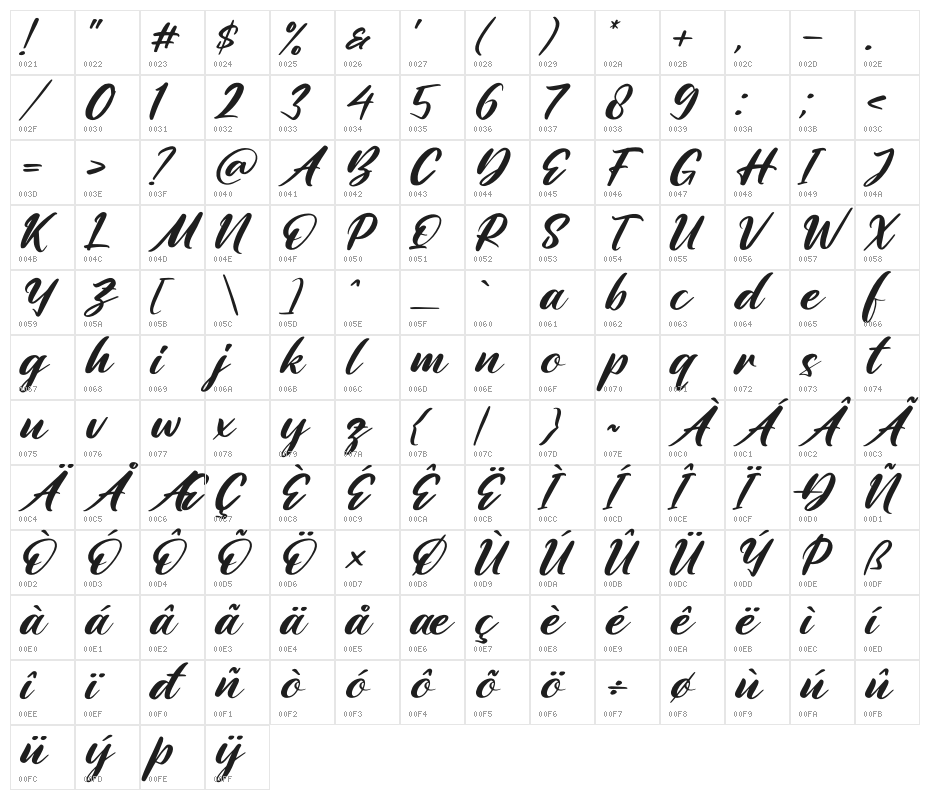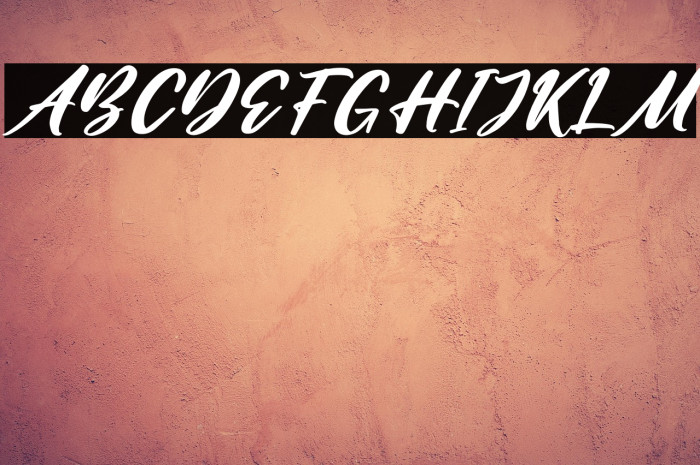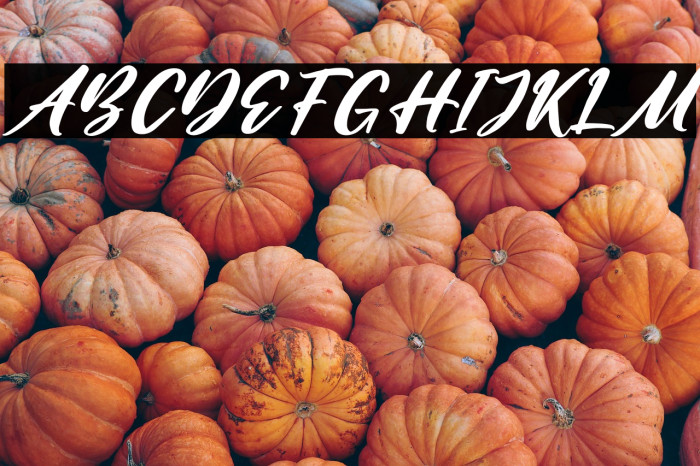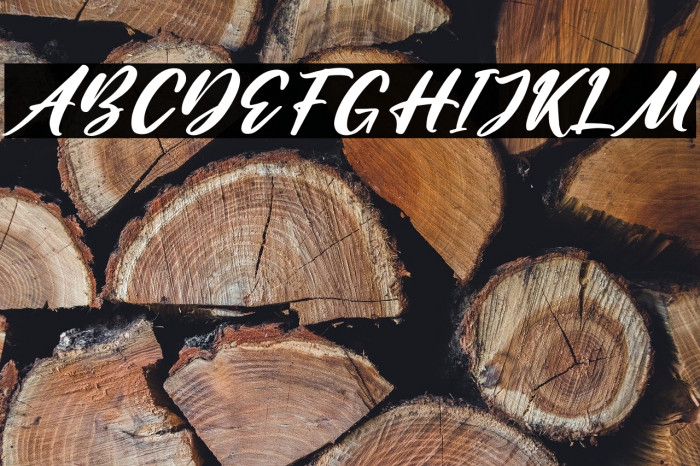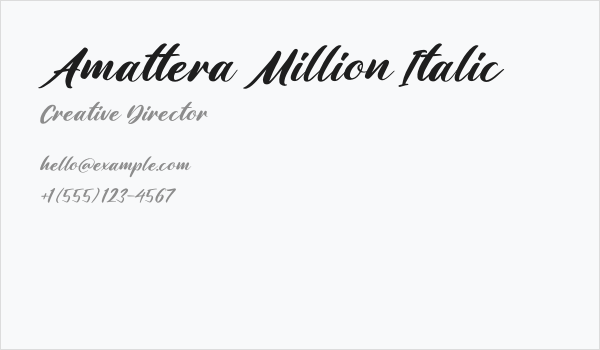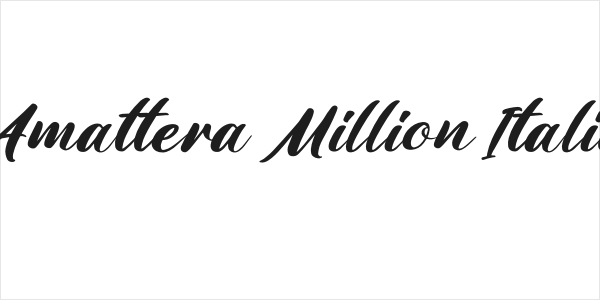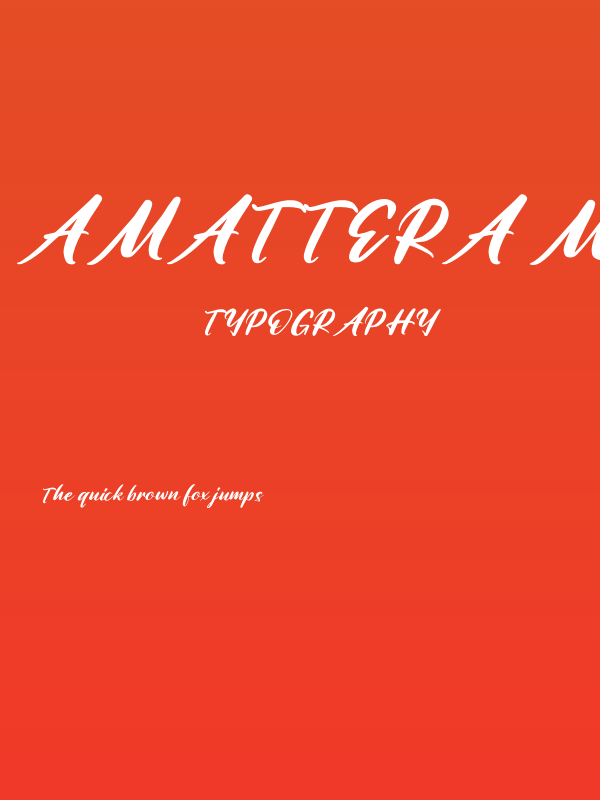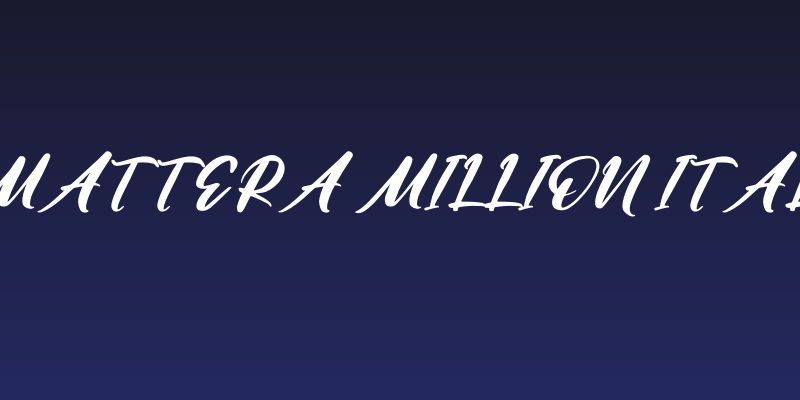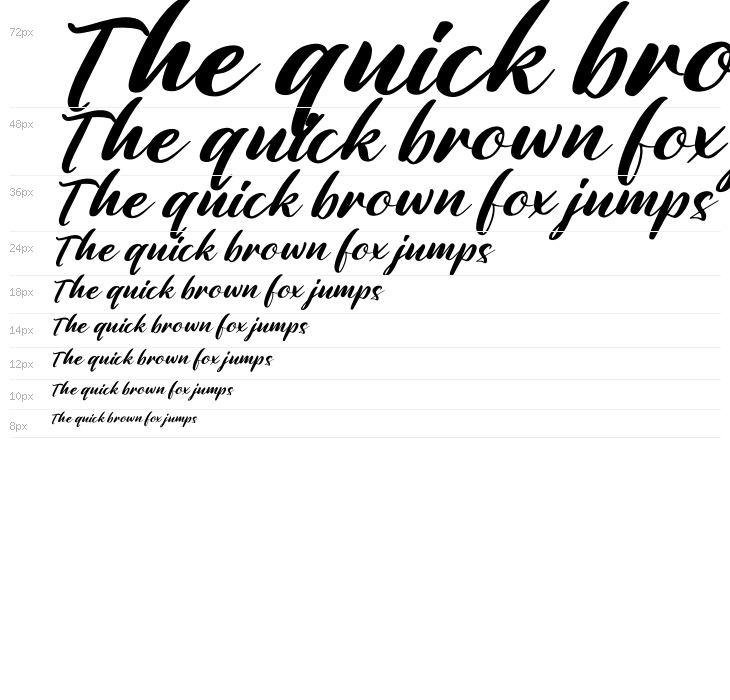
Amattera Million Italic Font
Amattera Million Italic Description
This font exhibits a dynamic and flowing script style, characterized by its elegant and cursive letterforms. The uppercase letters are bold and sweeping, with a distinct slant that adds a sense of motion and grace. The lowercase letters maintain a consistent flow, with smooth connections between characters, enhancing readability while preserving a handwritten feel. The numerals are stylishly integrated, matching the overall aesthetic with their curved and fluid lines. Special characters are thoughtfully designed, maintaining the font's cohesive look. This font's boldness and italic nature make it stand out, perfect for creative and expressive design projects.